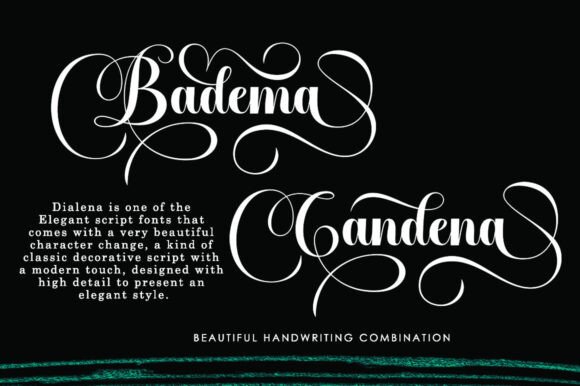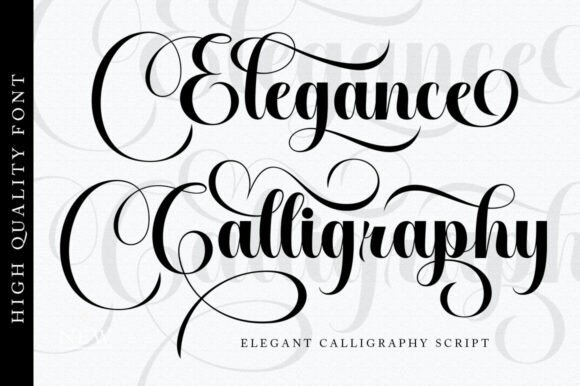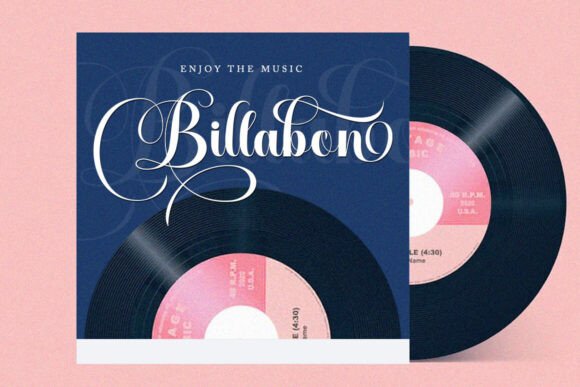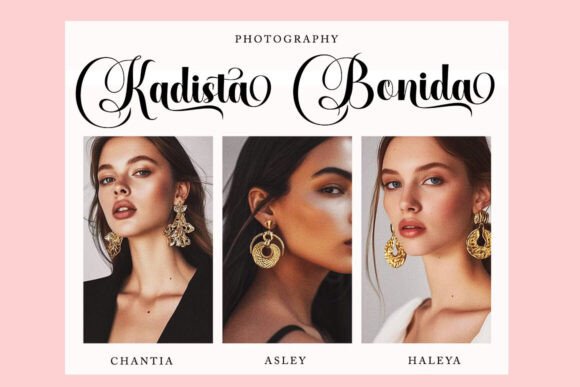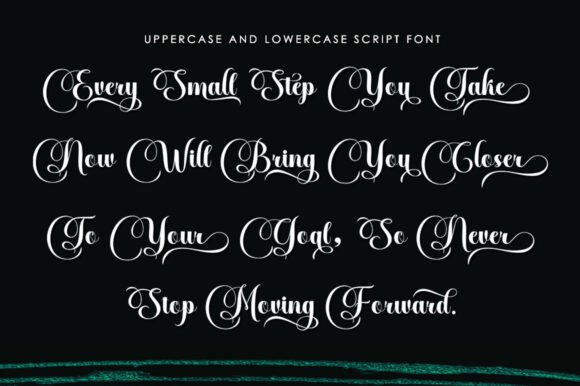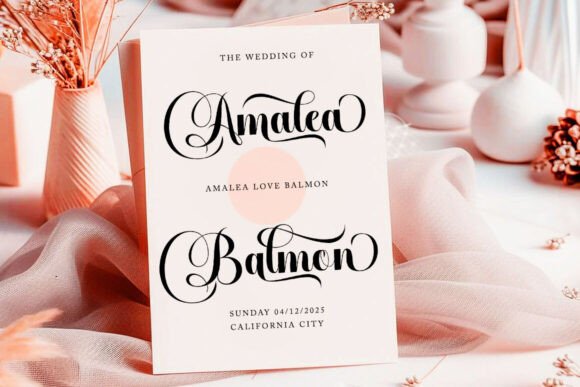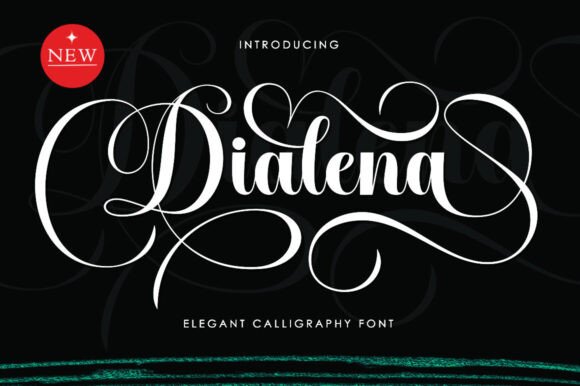
Introducing Dialena Font: The Elegant Script Font for Sophisticated Designs
In the world of typography, a well-crafted font can elevate a design from ordinary to extraordinary. For designers and crafters seeking a font that exudes elegance and sophistication, look no further than Dialena Font. This beautiful script font is a masterful blend of classic copper-style script and modern flair, making it perfect for a wide range of formal applications.
The Characteristics of Dialena Script Font
Dialena Script Font is characterized by its stunning character variations, which lend a touch of luxury to any design. The font’s classic copper-style script is reimagined with a modern twist, resulting in a visually appealing and clean aesthetic. The attention to detail is evident in the font’s elegant letter connections, which create a sense of fluidity and continuity.
One of the standout features of Dialena Font is its feminine charm. The font’s delicate lines and curves evoke a sense of refinement and poise, making it an excellent choice for designs that require a touch of elegance. Whether you’re creating invitations, labels, or stationery, Dialena Font is sure to impress.
Uses for Dialena Script Font
Dialena Script Font is a versatile font that can be used in a variety of formal applications. Some of the most popular uses for this font include:
• Invitations: Whether you’re planning a wedding, birthday party, or other special occasion, Dialena Font is the perfect choice for creating elegant and sophisticated invitations.
• Labels: Add a touch of luxury to your product labels or packaging with Dialena Font.
• Restaurant Menus: Create a memorable dining experience with Dialena Font, perfect for menus that require a touch of elegance.
• Logos: Establish your brand’s identity with a custom logo featuring Dialena Font.
• Fashion and Makeup: Dialena Font is a natural fit for fashion and makeup brands, adding a touch of sophistication to marketing materials and packaging.
• Stationery: Elevate your stationery with Dialena Font, perfect for creating elegant letters, notes, and cards.
• Novels, Magazines, and Books: Add a touch of elegance to your publishing projects with Dialena Font.
• Greeting and Wedding Cards: Create beautiful and memorable greeting and wedding cards with Dialena Font.
• Packaging: Dialena Font is perfect for creating luxurious packaging that stands out on store shelves.
• Advertising: Use Dialena Font to create eye-catching advertisements that exude elegance and sophistication.
Why Choose Dialena Script Font?
So why choose Dialena Script Font over other fonts? Here are just a few reasons:
• Elegant and Sophisticated: Dialena Font is the perfect choice for designers and crafters seeking to create elegant and sophisticated designs.
• Versatile: Dialena Font can be used in a wide range of formal applications, making it a valuable addition to any designer’s toolkit.
• Easy to Read: Despite its elegant appearance, Dialena Font is easy to read, making it perfect for body text and other applications where legibility is key.
• Clean and Visually Appealing: Dialena Font features clean lines and a visually appealing aesthetic, making it perfect for designs that require a touch of luxury.
In conclusion, Dialena Script Font is a stunning script font that is sure to elevate any design. With its elegant character variations, classic copper-style script, and modern twist, this font is perfect for a wide range of formal applications. Whether you’re a designer or crafter, Dialena Font is a valuable addition to your toolkit. So why wait? Download Dialena Font today and start creating elegant and sophisticated designs that impress.